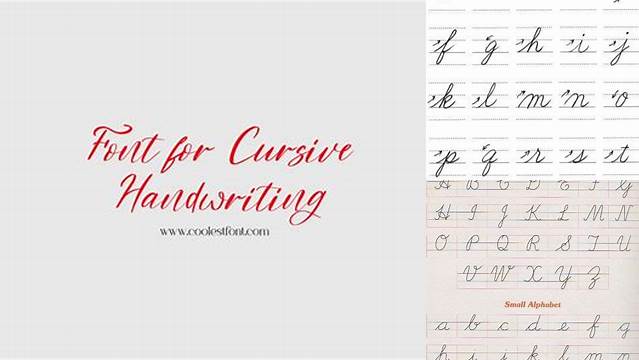
Elegant Cursive Fonts: Styles, History, And Handwriting Tips
Hey guys! Ever wondered about the magic behind beautiful handwriting? Let's dive into the world of cursive fonts, exploring their rich history, diverse styles, and practical applications. We’ll uncover what makes cursive so unique and how you can master it, or simply appreciate the artistry behind it. Cursive handwriting isn't just about connecting letters; it's an art form that reflects personality and style. In this comprehensive guide, we'll explore various aspects of cursive, from its historical roots to its modern applications. Understanding the nuances of different cursive fonts can help you appreciate the elegance and versatility this writing style offers. So, grab your favorite pen and paper, and let’s embark on this fascinating journey together!
The History and Evolution of Cursive
Cursive's story is a long and winding one, beginning way back in ancient times. The need for faster, more efficient writing led to the development of early forms of cursive. Think about it – scribes writing on papyrus or parchment needed a way to keep up with the flow of information! Over centuries, different cultures and writing tools shaped the evolution of cursive. From the Roman cursive scripts to the elegant hands of the Renaissance, each era left its mark. This historical context is crucial for understanding the different cursive fonts we see today. Each style carries with it echoes of the past, reflecting the societal and technological influences of its time. The development of the printing press initially threatened handwriting, but cursive persisted as a personal and expressive form of writing. In the digital age, while keyboards dominate, cursive maintains its charm and relevance, especially in personal correspondence and artistic endeavors.
Why Cursive Still Matters Today
In a world dominated by keyboards and digital communication, you might ask, “Why bother with cursive?” Well, there are plenty of reasons! Cursive handwriting isn't just about aesthetics; it has cognitive benefits too. Studies show that learning cursive can improve fine motor skills, memory, and even reading comprehension. Plus, there's something undeniably personal and elegant about a handwritten note. Think about receiving a heartfelt letter penned in beautiful cursive – it’s way more special than a typed email, right? In addition to personal expression, cursive plays a role in preserving historical documents. Many historical texts are written in cursive, and the ability to read these scripts provides a direct connection to the past. Moreover, the unique flourishes and styles of cursive fonts can add a touch of sophistication to invitations, certificates, and other formal documents. Embracing cursive is about more than just writing; it’s about connecting with history, enhancing cognitive skills, and adding a personal touch to your communications.
Exploring Different Styles of Cursive Fonts
Now, let's get to the fun part – exploring the amazing variety of different cursive fonts! From the classic elegance of Spencerian to the flowing lines of Copperplate, there's a cursive style out there for everyone. We’ll break down some popular styles, highlighting their unique characteristics and ideal uses. Whether you're looking for a formal script for wedding invitations or a more relaxed style for everyday notes, understanding the nuances of these fonts will help you choose the perfect one. Each cursive style has its own personality, and mastering a few can significantly enhance your handwriting skills. So, let's dive into the details and discover the beautiful world of cursive fonts!
Spencerian Script: The Classic Choice
Spencerian script is like the grand old dame of cursive fonts. Developed in the 19th century by Platt Rogers Spencer, it’s known for its graceful, flowing lines and elegant flourishes. Think beautiful business correspondence and formal documents – Spencerian was the go-to for a reason! Its balanced and rhythmic strokes make it a pleasure to both write and read. Spencerian emphasizes uniformity in letter height and slant, creating a polished and professional appearance. The script’s intricate letterforms require practice and precision, but the results are well worth the effort. Today, Spencerian script is often used for calligraphy, invitations, and special occasions where a touch of classic elegance is desired. Mastering Spencerian can be challenging, but it provides a strong foundation for learning other cursive styles. Its timeless appeal ensures that it remains a popular choice for those who appreciate the art of handwriting.
Copperplate Script: Elegance and Precision
If you're aiming for sheer elegance and precision, Copperplate script is your friend. This style, popular in the 18th and 19th centuries, is characterized by its thick downstrokes and delicate hairlines. It gets its name from the copper plates used for printing, which allowed for these fine details. Copperplate is often used for formal invitations, certificates, and calligraphy art. The script's formal appearance makes it ideal for special events and documents where a touch of sophistication is required. Mastering Copperplate involves using a pointed pen and applying varying pressure to create the distinctive thick and thin strokes. While it can be challenging to learn, the result is a stunningly beautiful script that exudes elegance and grace. Copperplate remains a favorite among calligraphers and handwriting enthusiasts, showcasing the timeless beauty of cursive writing.
Italic Cursive: A Modern Twist
For a more modern and approachable take on cursive, italic cursive is a fantastic choice. This style combines the legibility of italic print with the fluidity of cursive. It’s a great option for everyday handwriting, personal notes, and even professional correspondence. Italic cursive emphasizes simplicity and clarity, making it easier to learn and read than more ornate styles. The letterforms are typically more rounded and less embellished, giving the script a contemporary feel. Italic cursive is often taught as a practical alternative to traditional cursive styles, especially for those who find other scripts too complex. Its versatility makes it suitable for a wide range of applications, from casual writing to formal documents. Whether you're just starting with cursive or looking for a more efficient style, italic cursive offers a perfect blend of elegance and practicality.
Other Notable Cursive Styles
Beyond the big three, there's a whole world of different cursive fonts to explore! Think about the flowing beauty of Palmer script, the unique flair of Zanerian, and the artistic freedom of modern calligraphy. Each style has its own charm and history, offering something different for every taste and purpose. Palmer script, developed in the late 19th century, was designed for speed and efficiency, making it popular in business settings. Zanerian script, a refined form of Spencerian, is known for its intricate flourishes and ornamental details. Modern calligraphy, on the other hand, embraces experimentation and individuality, allowing for a wide range of styles and techniques. Exploring these different options can be incredibly rewarding, helping you to develop your own unique handwriting style. Whether you're drawn to the historical elegance of Zanerian or the contemporary creativity of modern calligraphy, there's a cursive style out there waiting for you.
Tips for Mastering Cursive Handwriting
Okay, so you're inspired to improve your cursive handwriting – awesome! But where do you start? Don't worry, we've got you covered. Mastering cursive takes practice, but with the right approach, it can be a fun and rewarding journey. We’ll share some essential tips and techniques to help you develop a beautiful and legible cursive script. From proper posture and pen grip to consistent practice and patience, we’ll guide you through the process. Remember, everyone's handwriting is unique, so the goal isn't to achieve perfection, but to develop a style that you enjoy and that reflects your personality. Let’s get started on your cursive handwriting adventure!
The Importance of Posture and Grip
First things first: posture and grip. Sounds basic, right? But they're crucial for comfortable and effective handwriting. Sit up straight with your feet flat on the floor, and hold your pen loosely. A relaxed grip allows for smoother strokes and prevents fatigue. Think about it – if you're hunched over and gripping your pen tightly, your hand will tire out quickly, and your writing will likely be cramped and uneven. Proper posture ensures that your arm and shoulder muscles can support your hand movements, leading to more fluid and consistent writing. Experiment with different pen grips to find the one that feels most natural and comfortable for you. Remember, the goal is to minimize tension and maximize control. By paying attention to these fundamental aspects of posture and grip, you'll set yourself up for success in mastering cursive handwriting.
So, there you have it – a deep dive into the world of different cursive fonts! We’ve explored the history, styles, techniques, and benefits of cursive handwriting. Whether you're looking to improve your own handwriting, appreciate the artistry of calligraphy, or simply understand the cognitive benefits, we hope this guide has been helpful. Remember, cursive isn't just a writing style; it's an art form, a connection to the past, and a valuable skill for the future. Keep practicing, keep exploring, and keep writing!